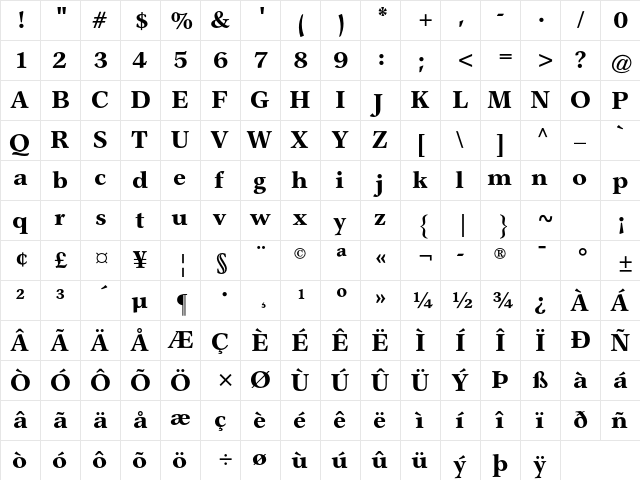
Garth Graphic Std Extra Bold
Extra Bold ·  John Matt, Renee LeWinter, Constance Blanchard ·
Design Context for Garth Graphic Std Typeface
Garth Graphic Std is a composed and adaptable typeface that performs quietly and consistently across a wide range of design contexts. Its bold stroke weight gives it real presence on the page.
Pro Tip: Use Garth Graphic Std in both headline and body roles to test its range before committing to a single application.